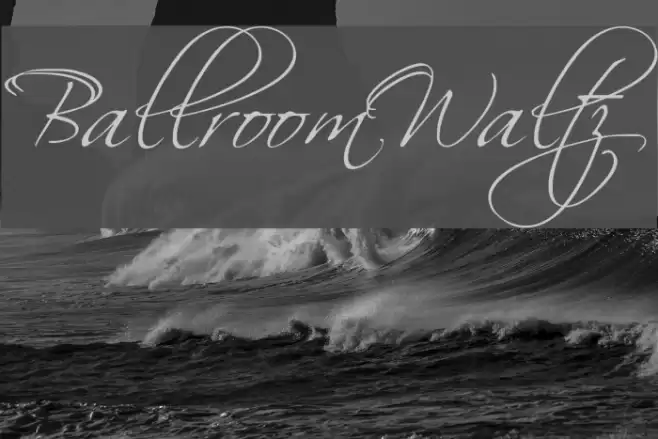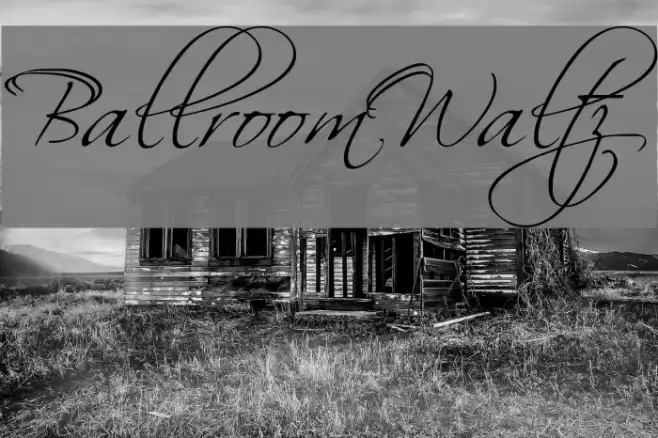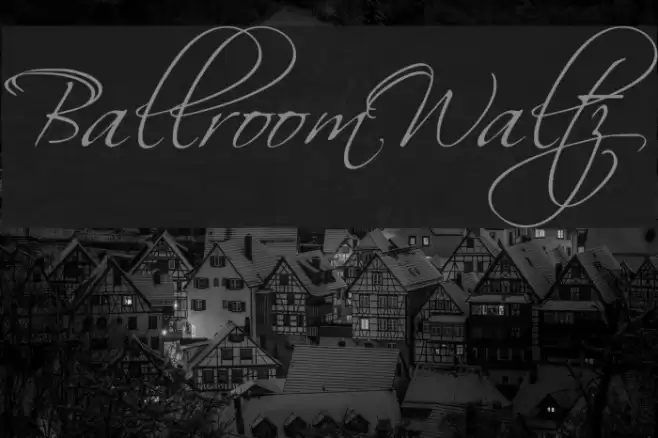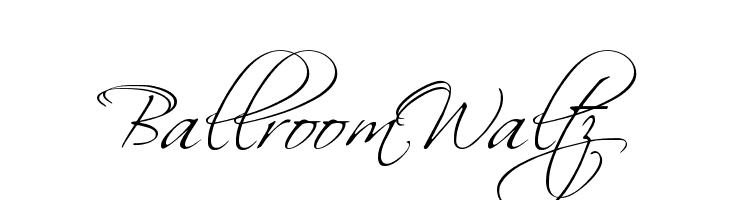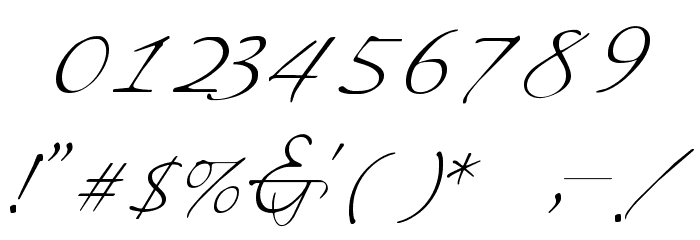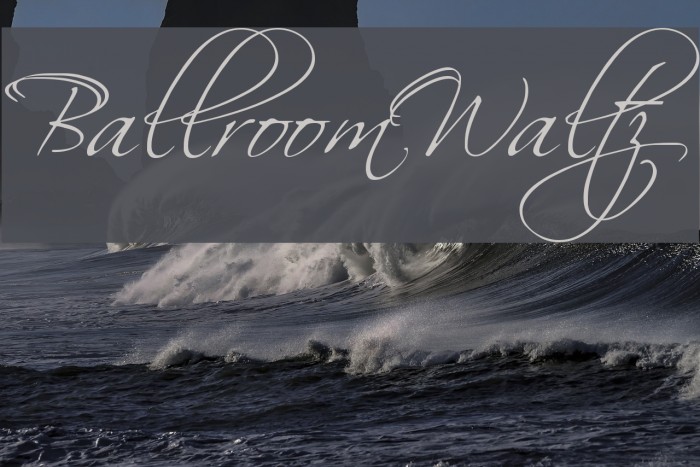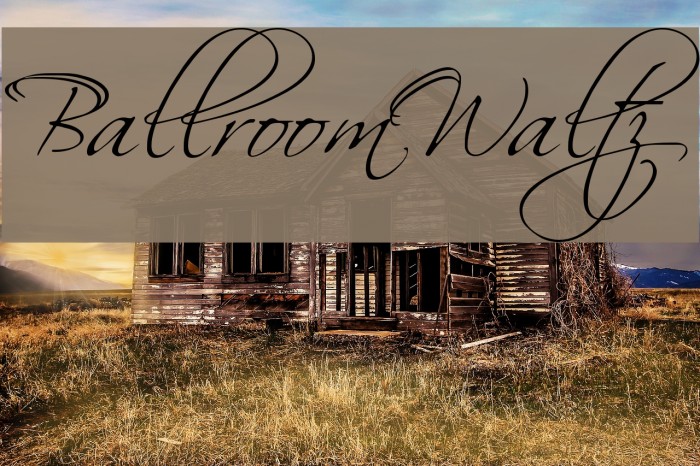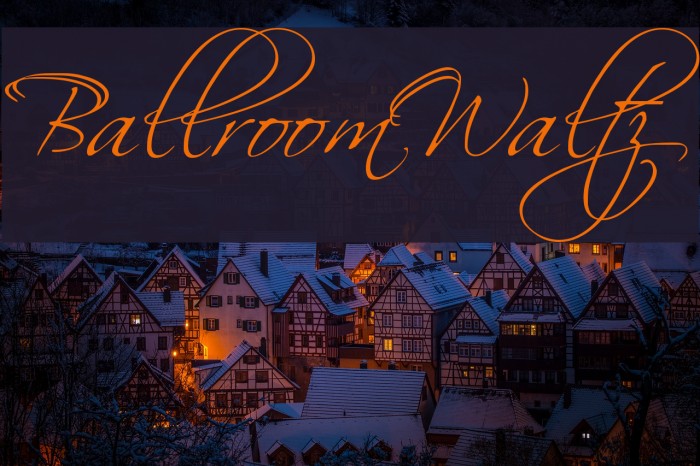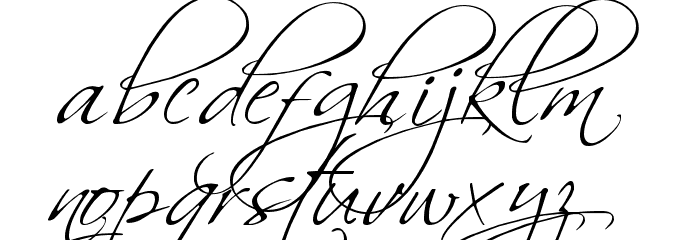
BallroomWaltz
This elegant script font exudes sophistication and grace, reminiscent of classic calligraphy with its flowing, interconnected strokes. Each letter is crafted with delicate curves and flourishes, creating a sense of movement and fluidity. The uppercase letters are particularly ornate, featuring elaborate swashes that extend beyond the baseline, while the lowercase letters maintain a more restrained elegance. The numerals and special characters are designed with the same attention to detail, ensuring a cohesive appearance across all text. This font is perfect for projects that require a touch of refinement and class.
An elegant script font with flowing, interconnected strokes and ornate flourishes.
- Proposed Projects: Ideal for wedding invitations, formal event programs, luxury branding, and elegant packaging.
- Category: Script
- Contrast: High
- Overall Style: Classic
- Use Case: Logos, Invitations, Decorative text